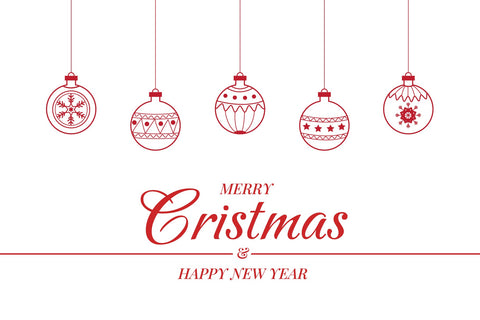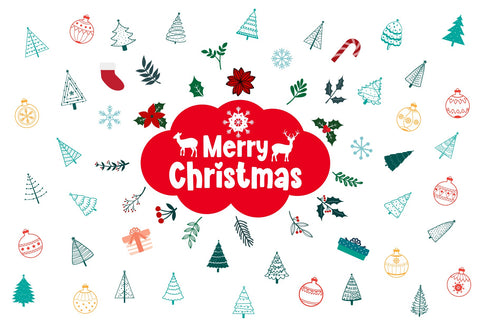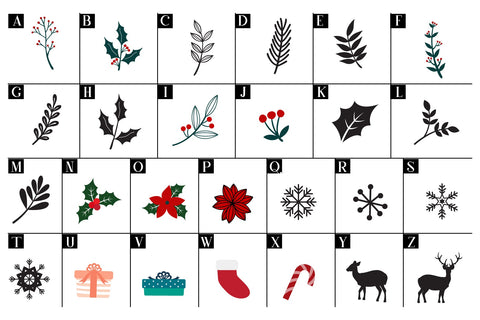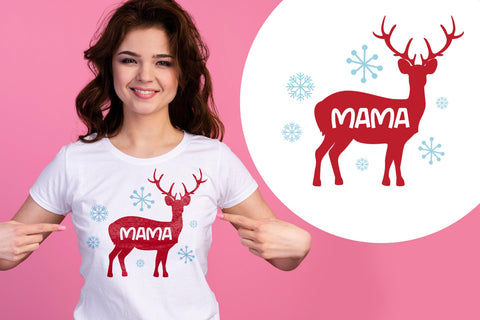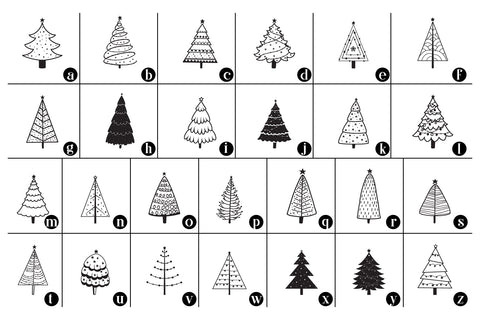
Merry Christmas Color&Dingbat Fonts
Merry Christmas is a cute dingbat font specially designed for the Xmas season, it has both a color font and a font that you can change the color freely in a single font. Its versatility makes it great for a wide pool of craft projects, designs, planners, diaries, activity books, or anything that your heart desires. Add this beautiful doodle dingbat font to each of your creative ideas, and notice how it makes them stand out.